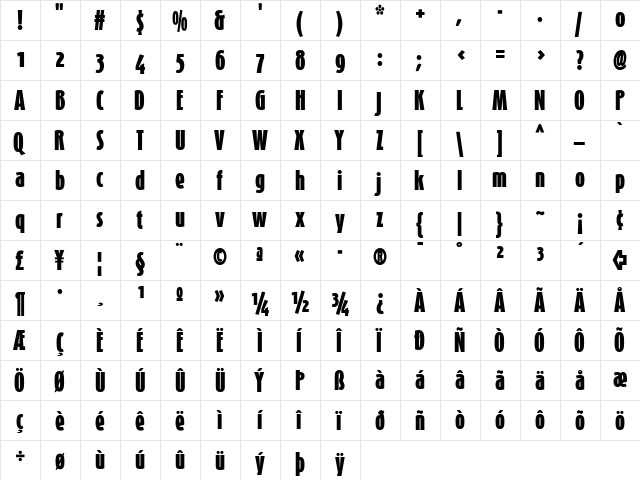
Schmalhans Black
Design Context for Schmalhans Typeface
Schmalhans offers clean, dependable letterforms without strong stylistic allegiance, making it a practical choice for designers who need flexibility.
Pro Tip: Pair Schmalhans with a font of contrasting weight or personality to build a more expressive typographic hierarchy.